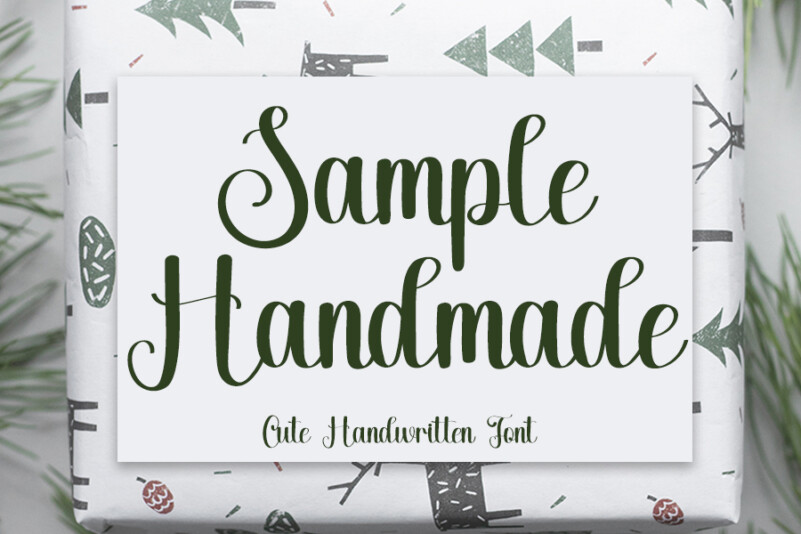
Marker Public Font
Marker Public Font is a display typeface built for fast, direct use.
The forms keep small inconsistencies to preserve a human feel. Designed to be clear at a glance.
Includes uppercase, lowercase, numbers, and symbols.